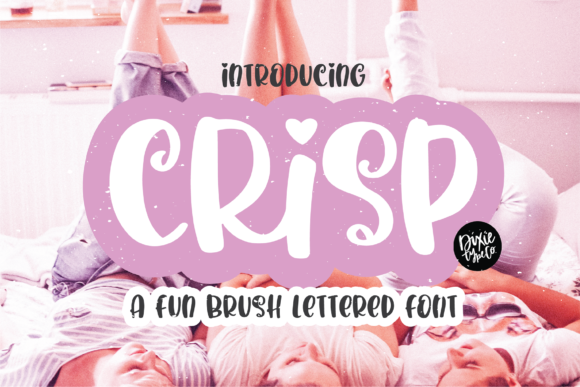
Prepare yourself for a transformative typographic journey with Crisp Font, the ultimate brush lettered script font, meticulously crafted by blushfontco. Crisp exudes an aura of natural charm, seamlessly intertwining boldness and elegance to elevate your creative endeavors. It's the perfect font for your logos, branding, social media presence, and those crafty DIY projects that set your imagination ablaze.
Crisp Font's captivating strokes dance across the page, evoking a sense of authenticity and uniqueness. Its natural charm is reminiscent of handwritten notes, adding a personal touch to your designs. With Crisp Font as your ally, your logos will command attention, your branding will leave a lasting impression, and your social media posts will captivate your audience.
Unleash your creativity with Crisp Font and transform your designs into captivating works of art. Its versatility knows no bounds, adapting effortlessly to a myriad of projects, from wedding invitations that whisper romance to business cards that exude professionalism. Crisp Font is the perfect font for Cricut Pen, enabling you to bring your crafting visions to life with precision and flair.
With Crisp Font, you'll discover a world of endless possibilities, where your imagination is the only limit. Its natural charm will add a touch of magic to your designs, leaving a lasting impression on your audience. Embrace the beauty of Crisp Font and unlock the true potential of your creativity.